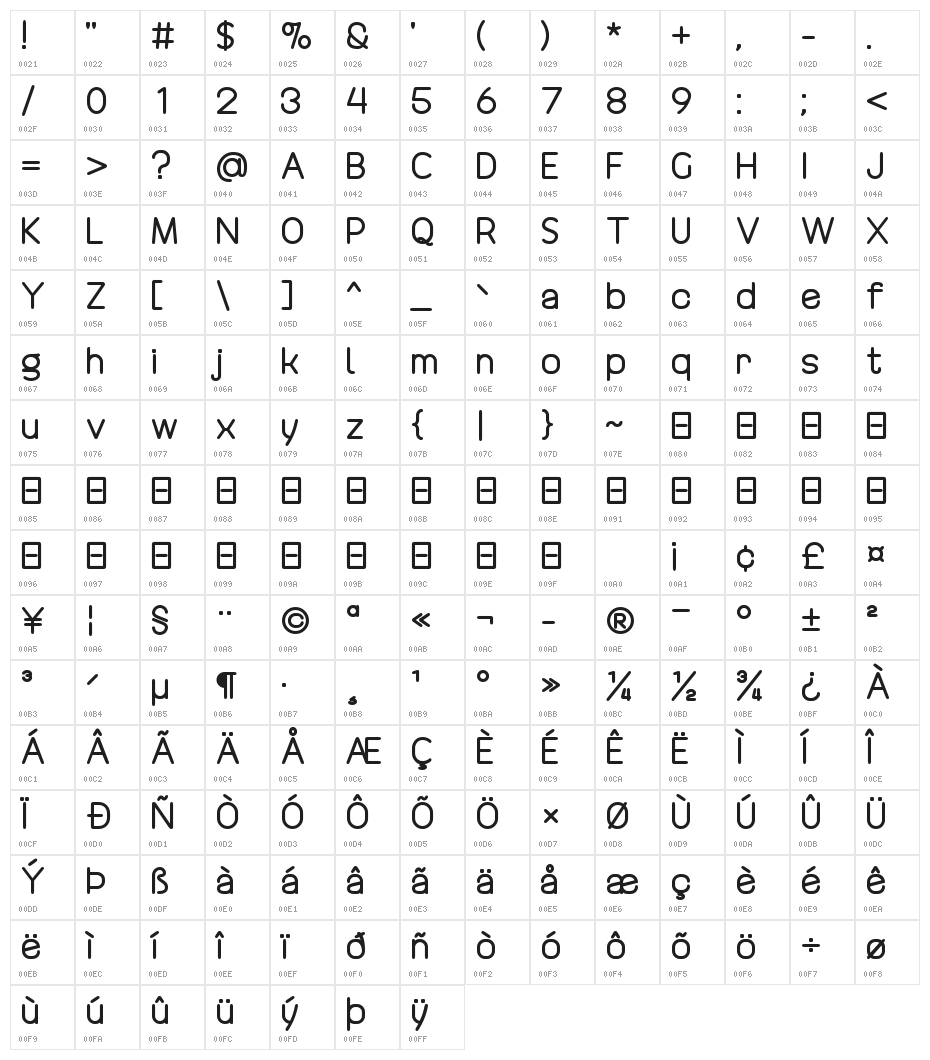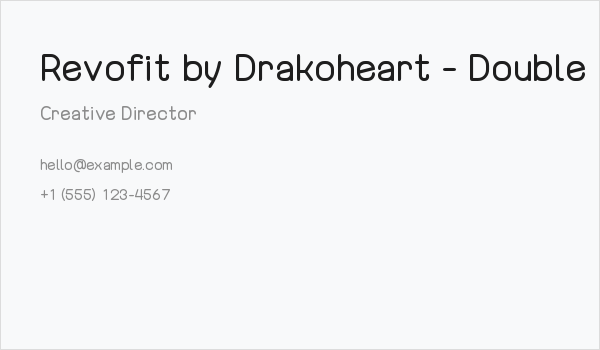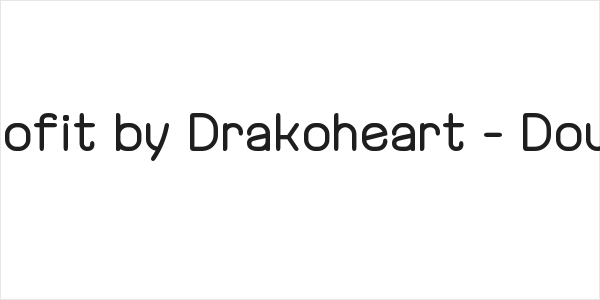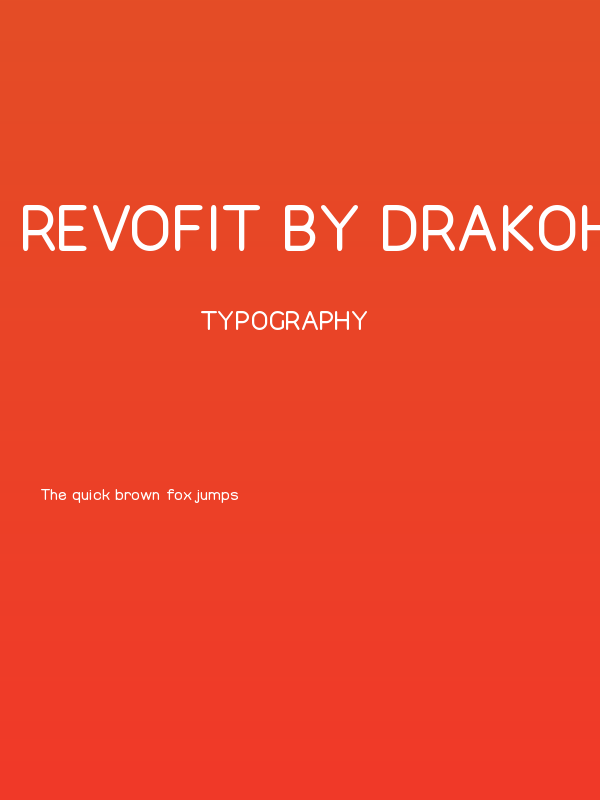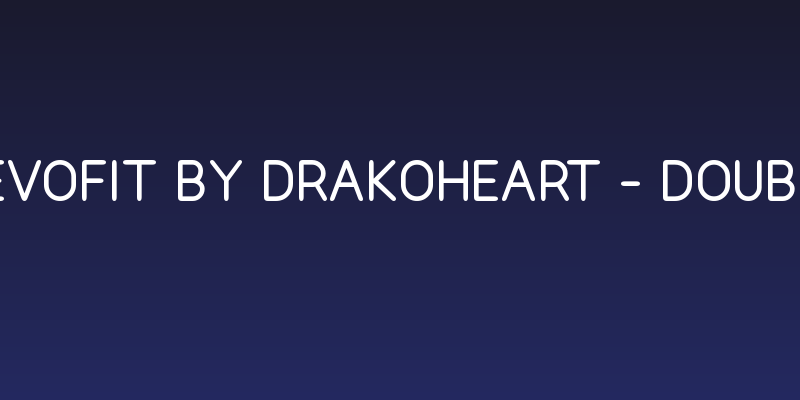
Revofit by Drakoheart - Double Font
Revofit by Drakoheart - Double Description
This font features a clean and modern sans-serif design with rounded edges, giving it a friendly and approachable appearance. The characters are evenly spaced, contributing to its readability. The uniform stroke width throughout the font provides a consistent and harmonious look. It includes a full set of uppercase and lowercase letters, numerals, and a variety of special characters, making it versatile for various design needs. The simplicity and clarity of the font make it suitable for both digital and print media, ensuring legibility across different sizes and resolutions.